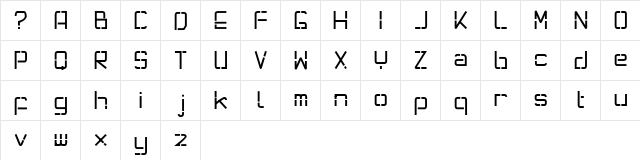
monolight Regular
| Foundry | eland sathosi |
| Designer | eland sathosi |
Design Context for monolight Typeface
monolight uses fixed-width spacing throughout, giving it the structured, systematic character associated with coding environments and technical documentation. The delicate stroke weight brings airiness and refinement to layouts.